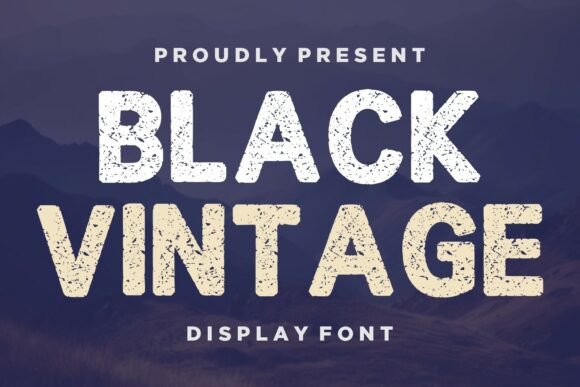
Unleash the Power of Black Vintage Font: A Bold and Distressed Display Font
Are you looking for a font that exudes a sense of ruggedness and character? Look no further than the Black Vintage font, a bold, distressed display font that is sure to make a statement. With its heavily distressed, “rough-around-the-edges” look, this font is perfect for designers and crafters who want to add a touch of antique charm to their projects.
The Characteristics of Black Vintage Font
The Black Vintage font is a master of atmosphere, offering a dense, bold weight with significant texture loss. This creates a striking visual rhythm of dark and light within each character, giving the font a unique and eye-catching appearance. The rugged texture and strong character of the font evoke the spirit of antique letterpress and vintage woodblocks, making it perfect for projects that require a sense of nostalgia or vintage charm.
Perfect for Horror Movie Titles and Antique-Themed Branding
The Black Vintage font is the ultimate choice for horror movie titles, antique-themed branding, and edgy streetwear designs that need a sense of decay or “found” art. The font’s distressed look and rugged texture create a sense of foreboding and unease, making it perfect for horror movie titles and other projects that require a sense of drama and tension.
A Decorative Element in Itself
Because of its high level of detail, the Black Vintage font serves as a decorative element in itself, requiring minimal ornamentation to feel complete. This makes it perfect for designers who want to create a bold and eye-catching design without over-accessorizing it. The font’s distressed look and rugged texture are enough to make a statement, making it a great choice for projects that require a sense of simplicity and elegance.
Pairing Options for a Sophisticated Look
The Black Vintage font can be paired with modern, ultra-clean serifs for a sophisticated “dark academia” look. This contrast between the bold, distressed font and the clean, modern serif creates a visually interesting and dynamic design that is sure to impress. Alternatively, the font can be used in high-contrast black and white for a bold, punk-inspired aesthetic that demands to be noticed.
Design Inspiration and Tips
When using the Black Vintage font, it’s essential to consider the design inspiration and aesthetic you want to achieve. Here are a few tips to keep in mind:
- Use the font in large sizes to make a bold statement. The Black Vintage font is perfect for headlines, titles, and other large-format text.
- Experiment with different colors and textures to add depth and interest to your design. The font’s distressed look and rugged texture can be enhanced with the right color and texture choices.
- Pair the font with clean, modern elements to create a visually interesting contrast. This can help to balance out the bold, distressed look of the font.
The Black Vintage font is a powerful and versatile display font that is sure to make a statement. With its bold, distressed look and rugged texture, it’s perfect for designers and crafters who want to add a touch of antique charm to their projects. Whether you’re creating a horror movie title, antique-themed branding, or edgy streetwear design, the Black Vintage font is the ultimate choice. So why wait? Download the Black Vintage font today and start creating your own unique designs.
Key Features of Black Vintage Font
- Bold and distressed display font: The Black Vintage font features a bold, distressed look that is sure to make a statement.
- Rugged texture and strong character: The font’s rugged texture and strong character evoke the spirit of antique letterpress and vintage woodblocks.
- Heavily distressed, “rough-around-the-edges” look: The font’s distressed look creates a sense of foreboding and unease, making it perfect for horror movie titles and other projects that require a sense of drama and tension.
- Perfect for horror movie titles, antique-themed branding, and edgy streetwear designs: The Black Vintage font is the ultimate choice for projects that require a sense of nostalgia or vintage charm.
- Serves as a decorative element in itself: The font’s high level of detail means that it can be used as a decorative element in itself, requiring minimal ornamentation to feel complete.